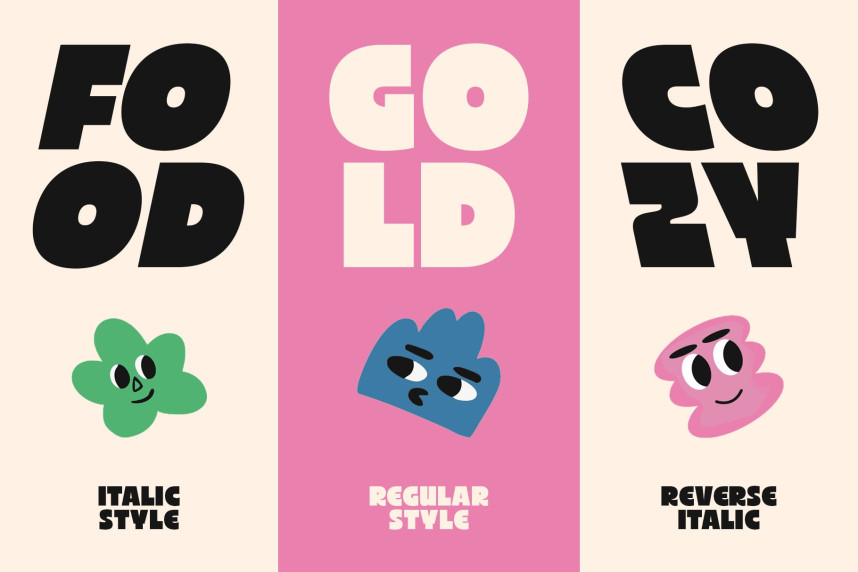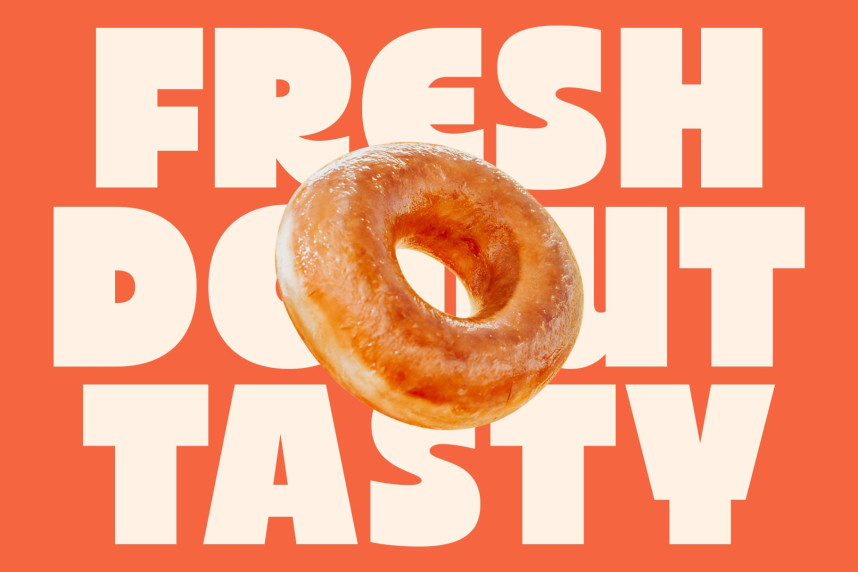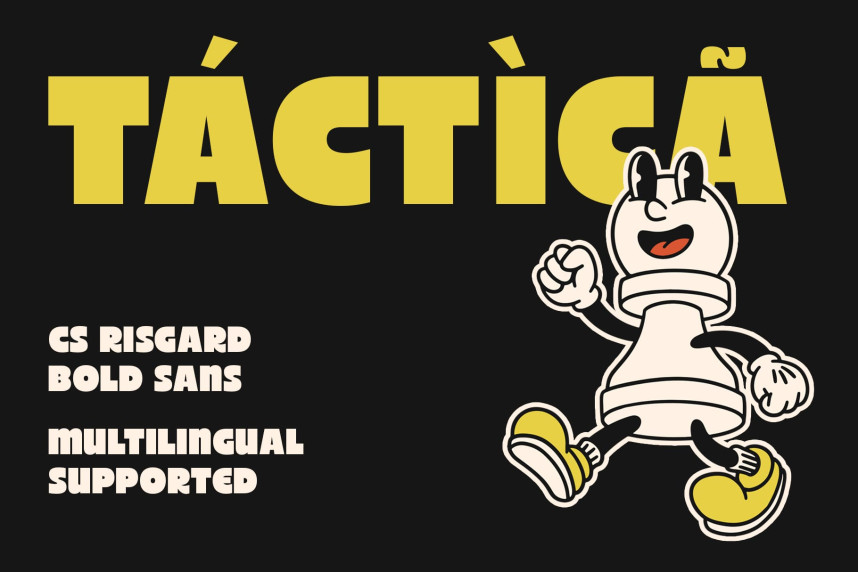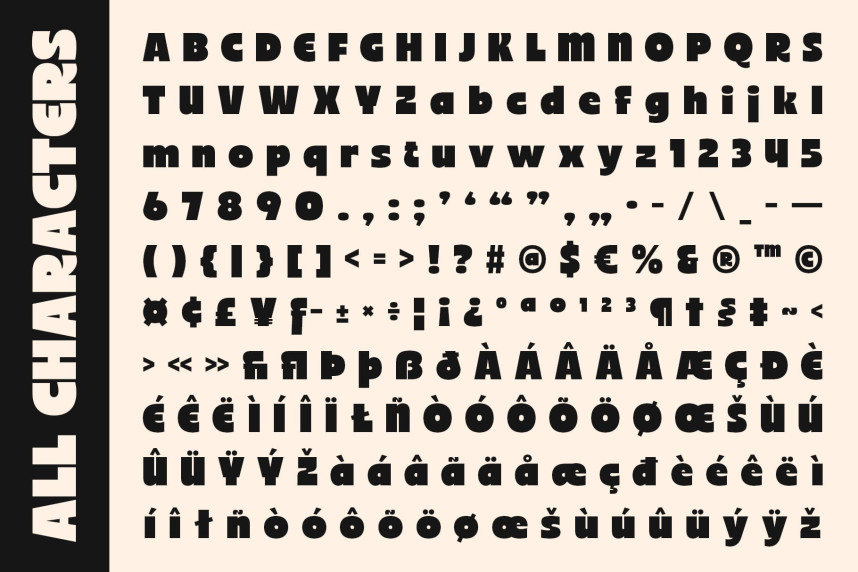
CS Risgard Font
CS Risgard Font – Bold Modern Sans Serif with Funky Energy Strong Shapes with Modern Confidence. This is a modern sans serif font defined by its bold, clean, and confident forms. Each letter is crafted with precision, creating a sense of balance and impact that commands attention. Designed to stand out, this typeface embodies modern energy and visual strength perfect for designers seeking a powerful, contemporary look.